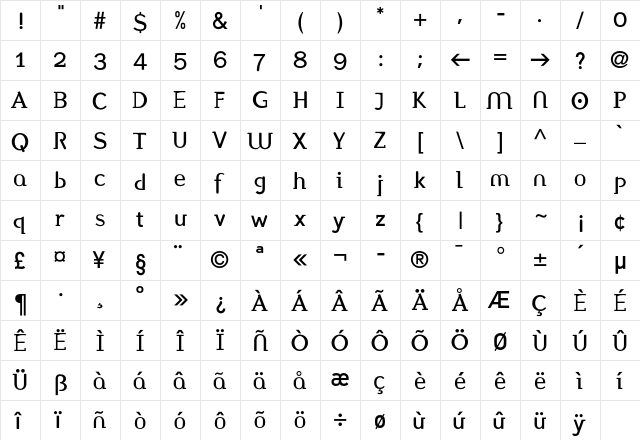
F2FStylettiMedium LT Std Regular
| Foundry | Linotype Library GmbH |
| Designer | Sibylle Schlaich |
Design Context for F2FStylettiMedium LT Std Typeface
F2FStylettiMedium LT Std takes a measured approach to typography — its balanced proportions and neutral character make it a reliable workhorse for both digital and print work. The delicate stroke weight brings airiness and refinement to layouts.
First published in 1996, this typeface is available in OpenType (OTF) format.